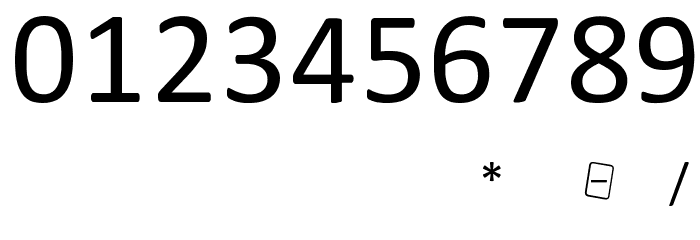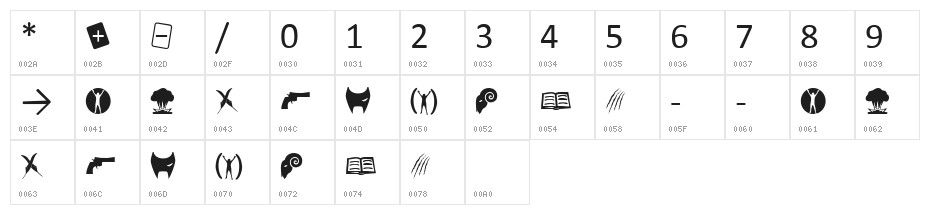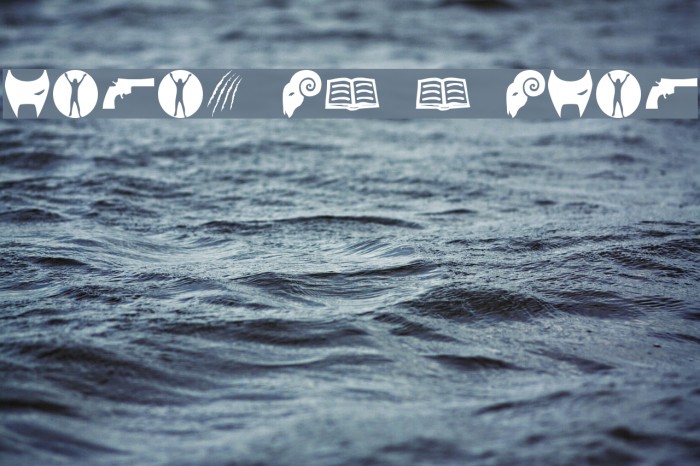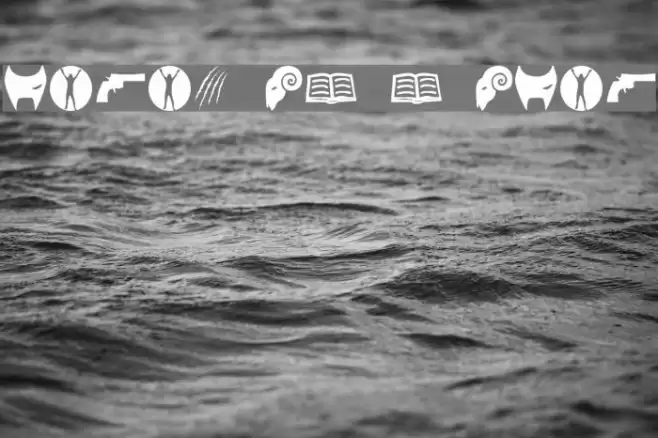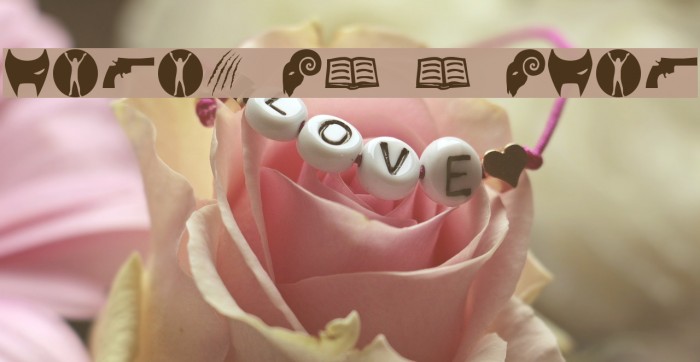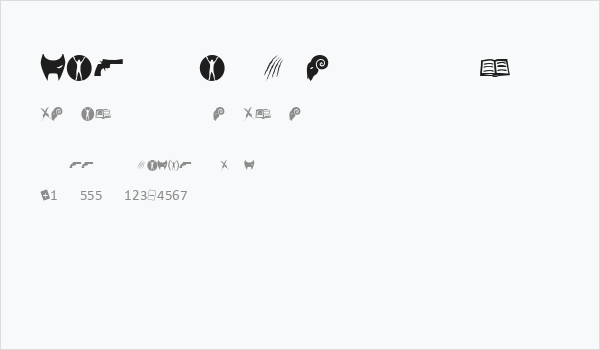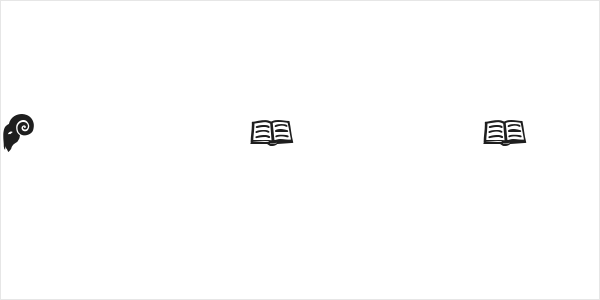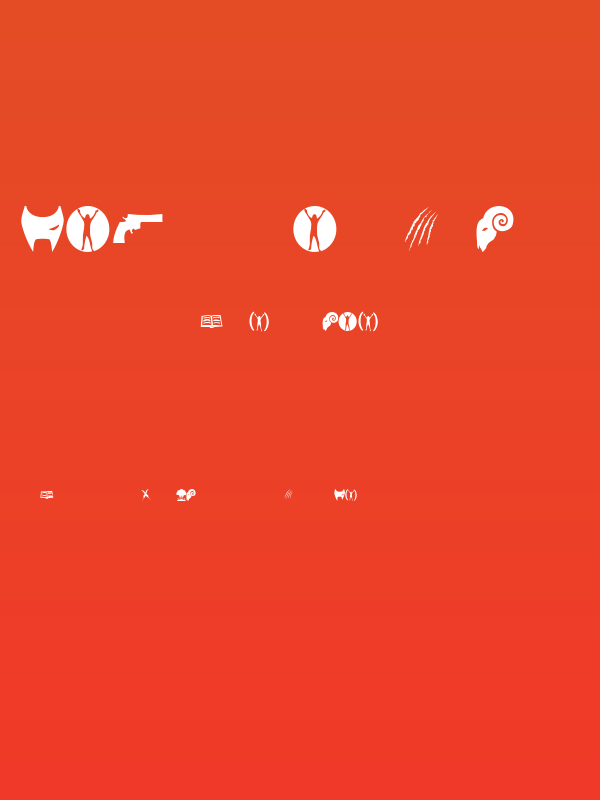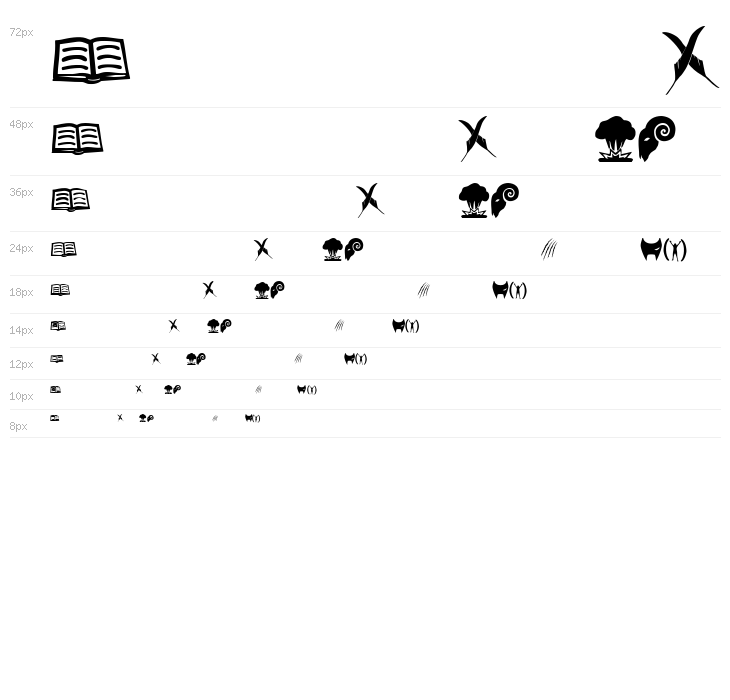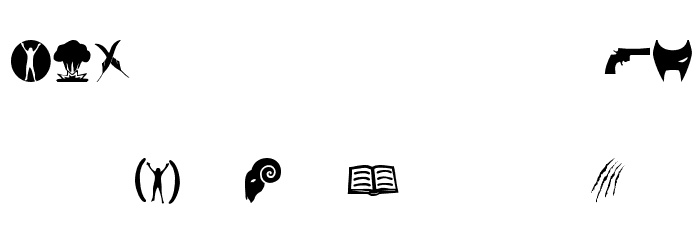
Malifaux Rodent Edition Normal Font
Malifaux Rodent Edition Normal Description
This image features a collection of unique symbols and icons rather than a traditional alphabetic font. The design includes various thematic elements such as trees, crossed swords, a ram's head, an open book, a gun, a mask, and claw marks. These symbols are likely intended for use in a specific thematic or gaming context, providing a distinctive visual language. The numbers are presented in a clean, sans-serif style, offering a modern and straightforward appearance. The special characters include asterisk, book, and slash, maintaining the thematic consistency.